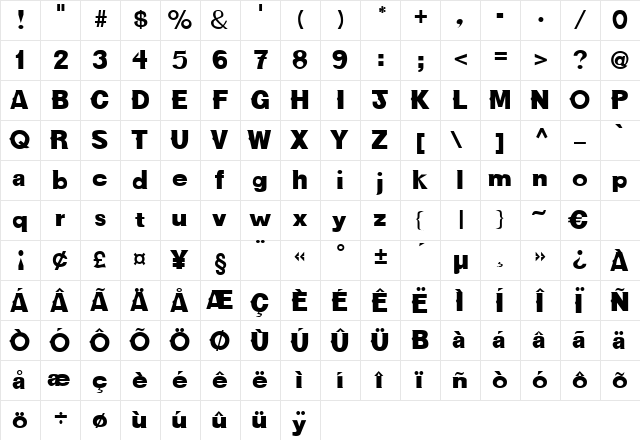
Baikal Regular
Design Context for Baikal Typeface
Baikal offers clean, dependable letterforms without strong stylistic allegiance, making it a practical choice for designers who need flexibility.